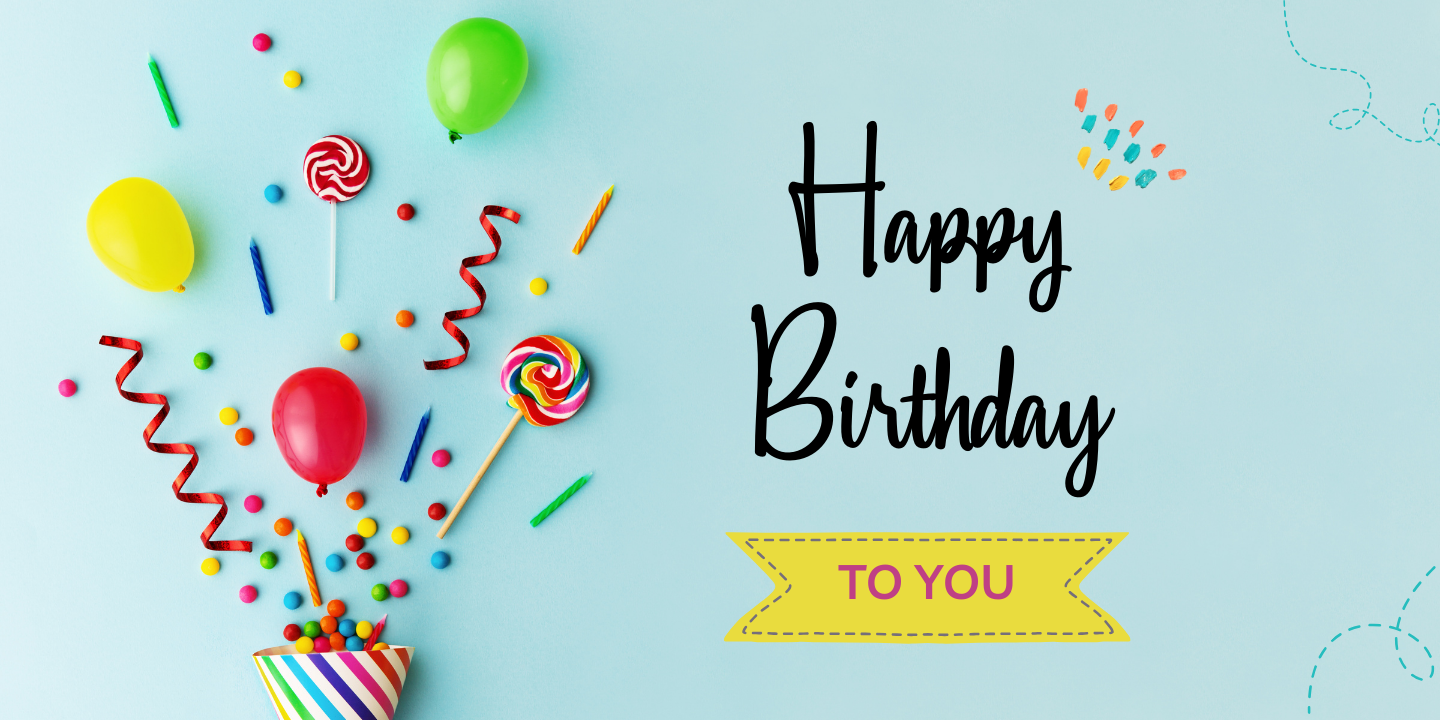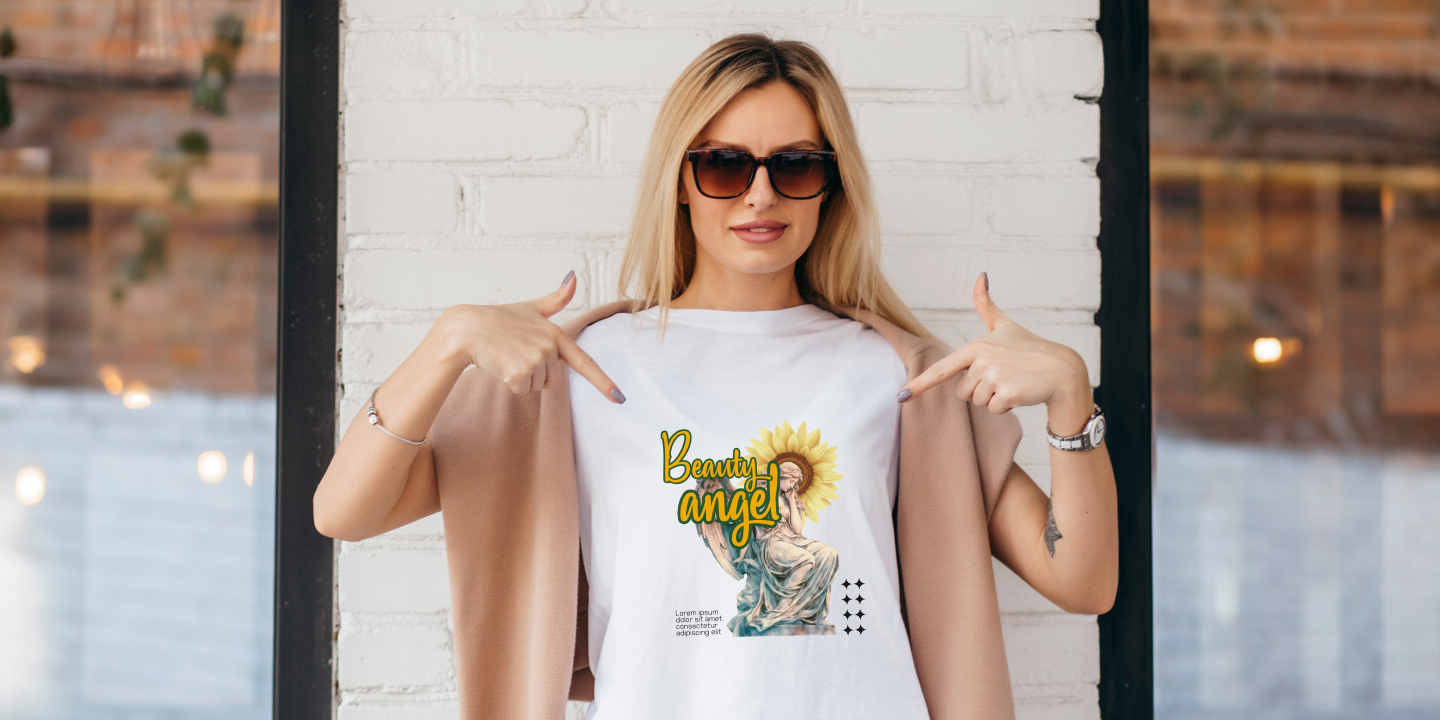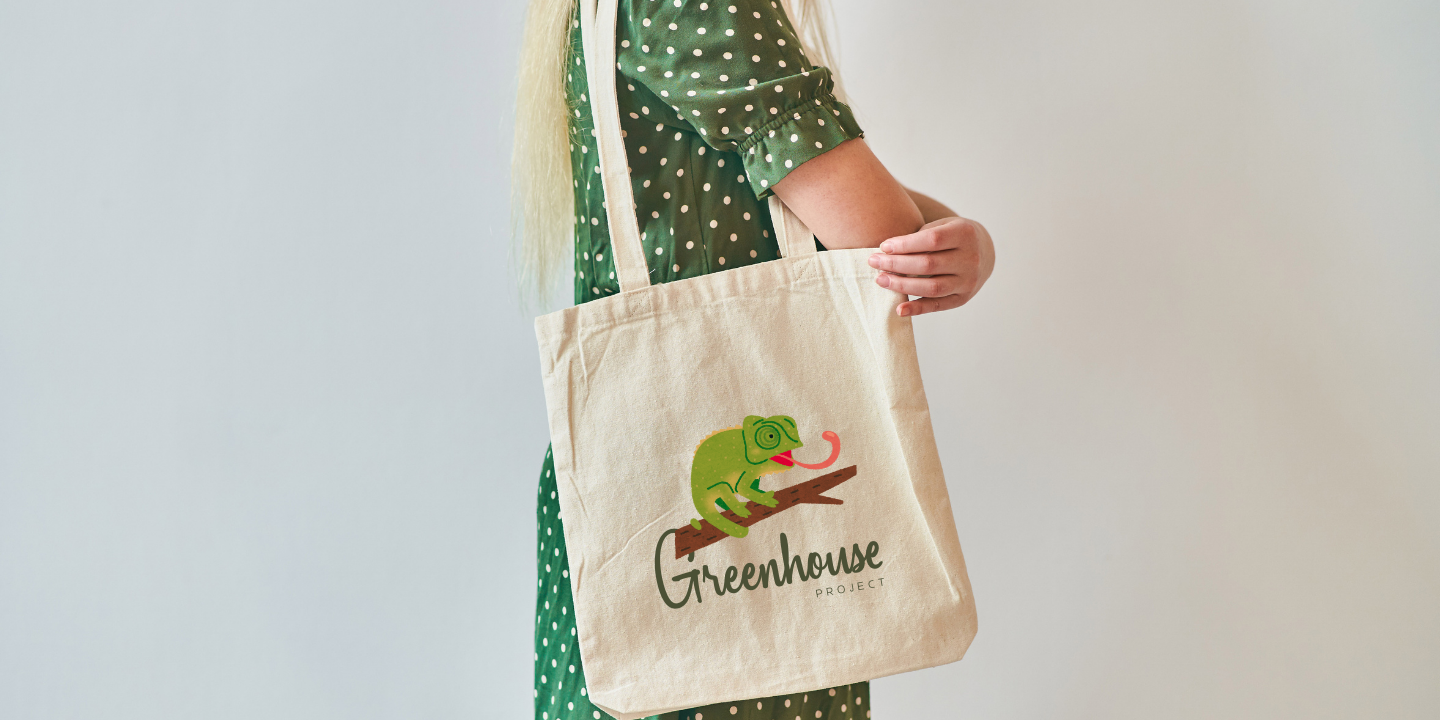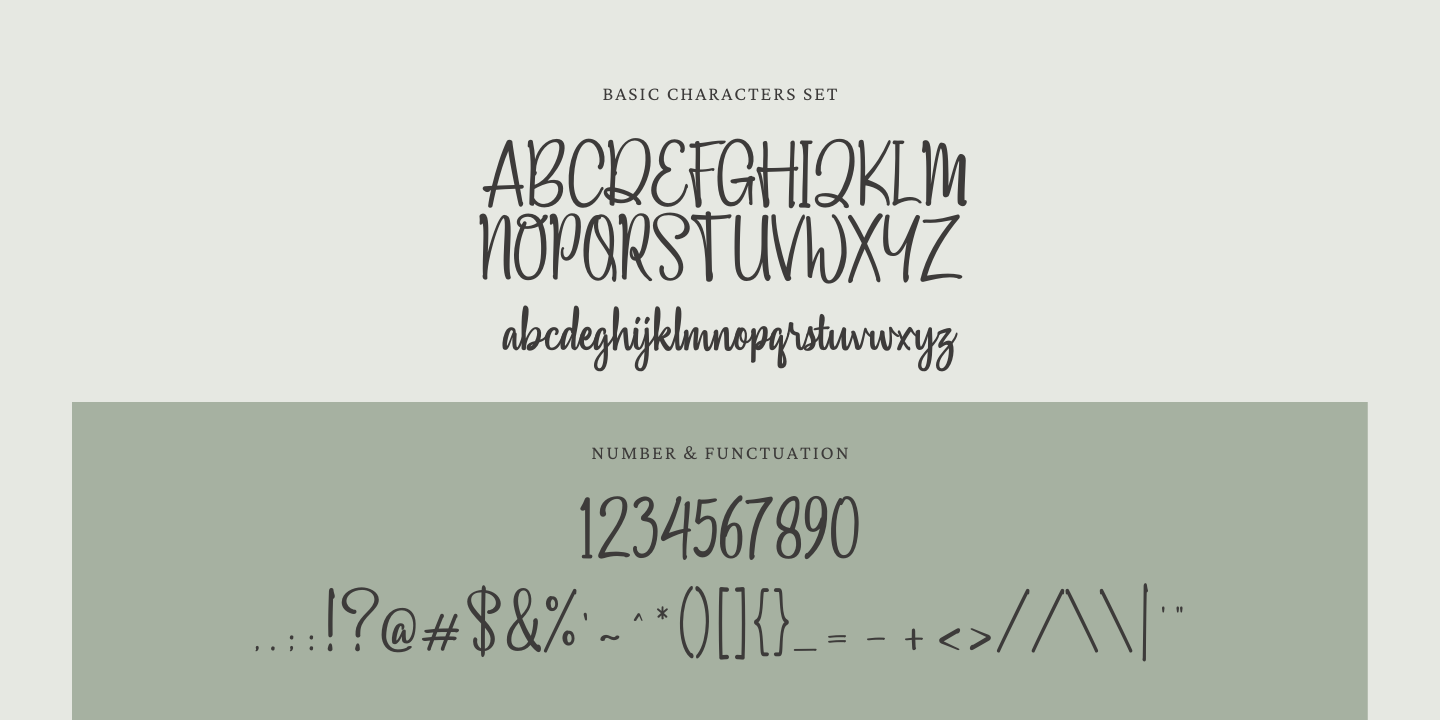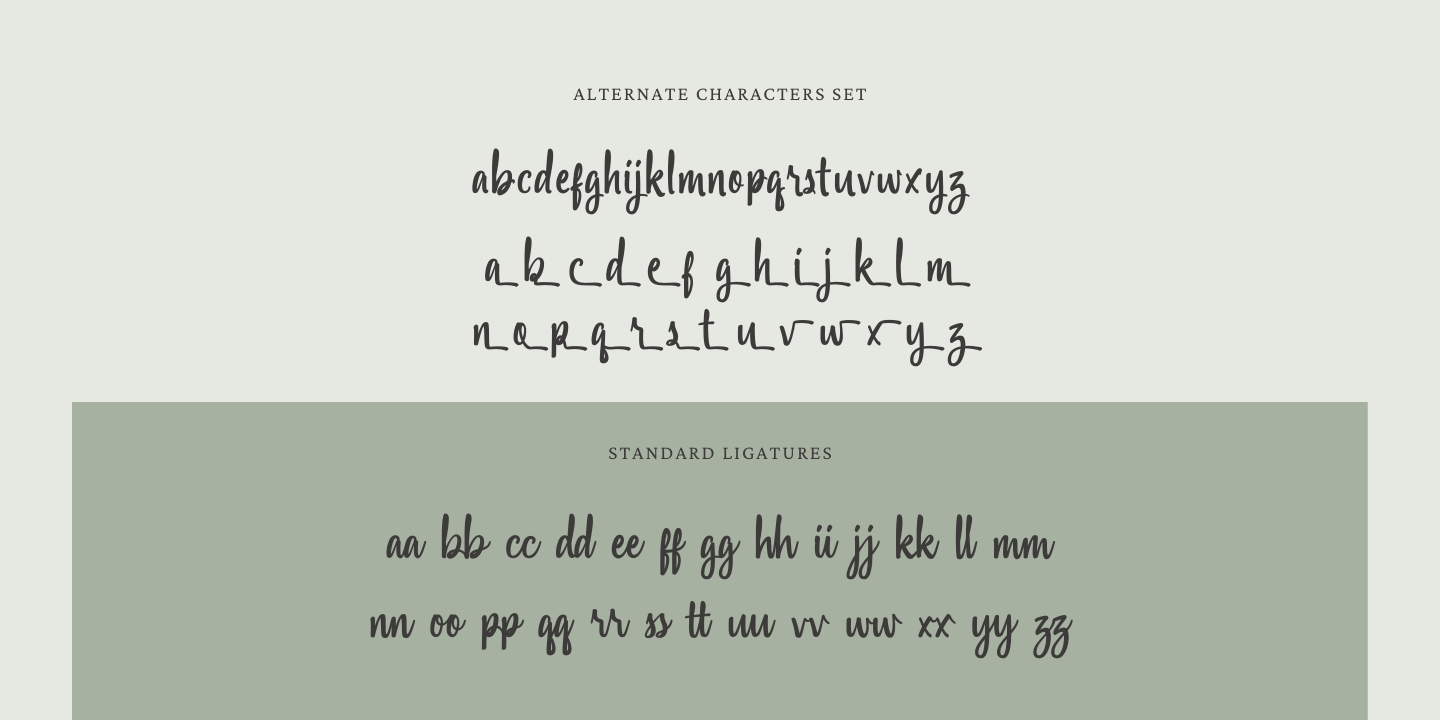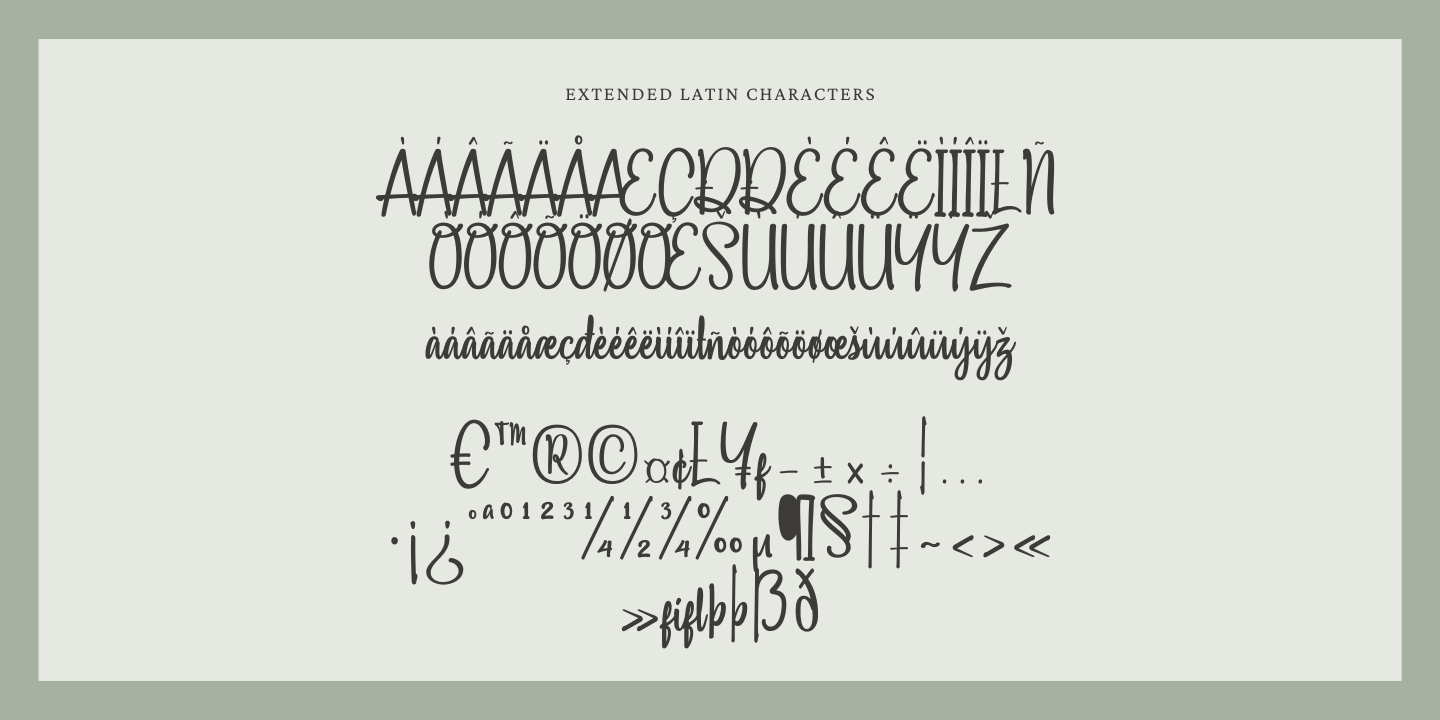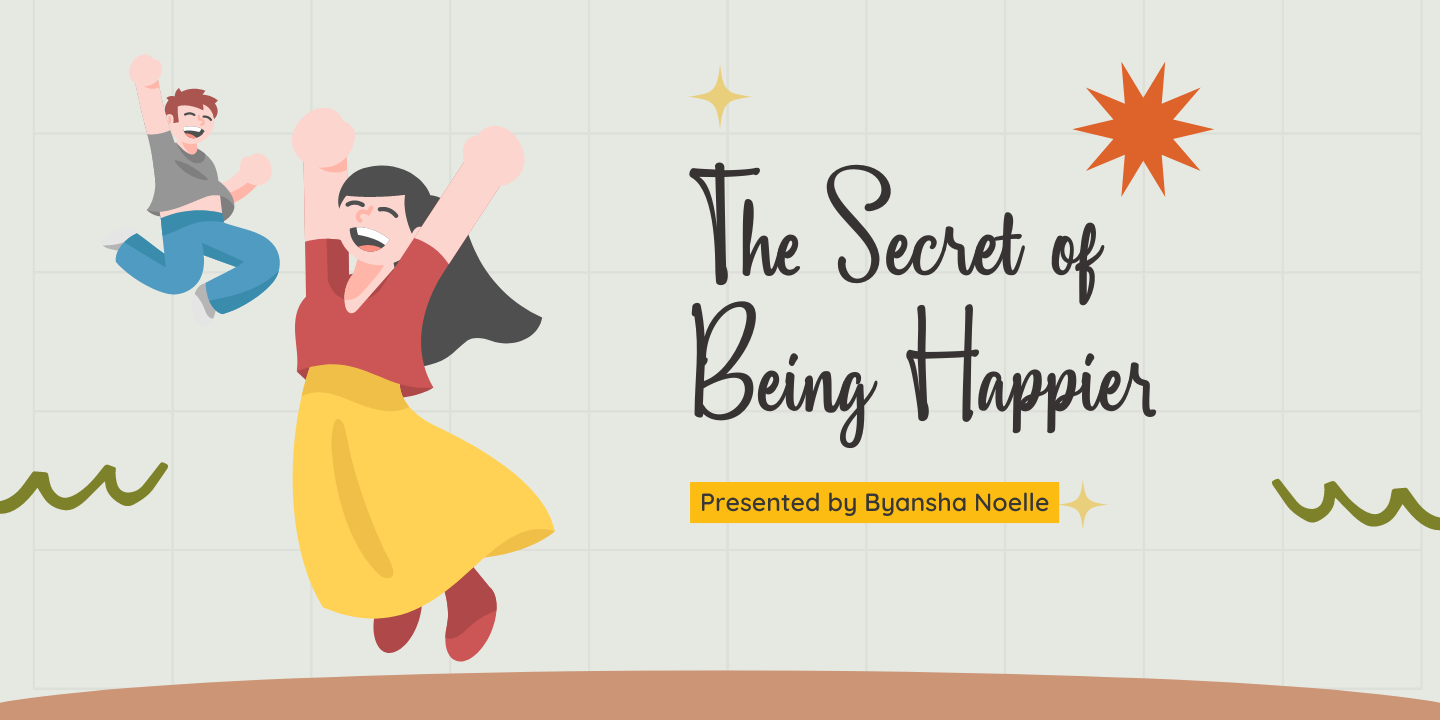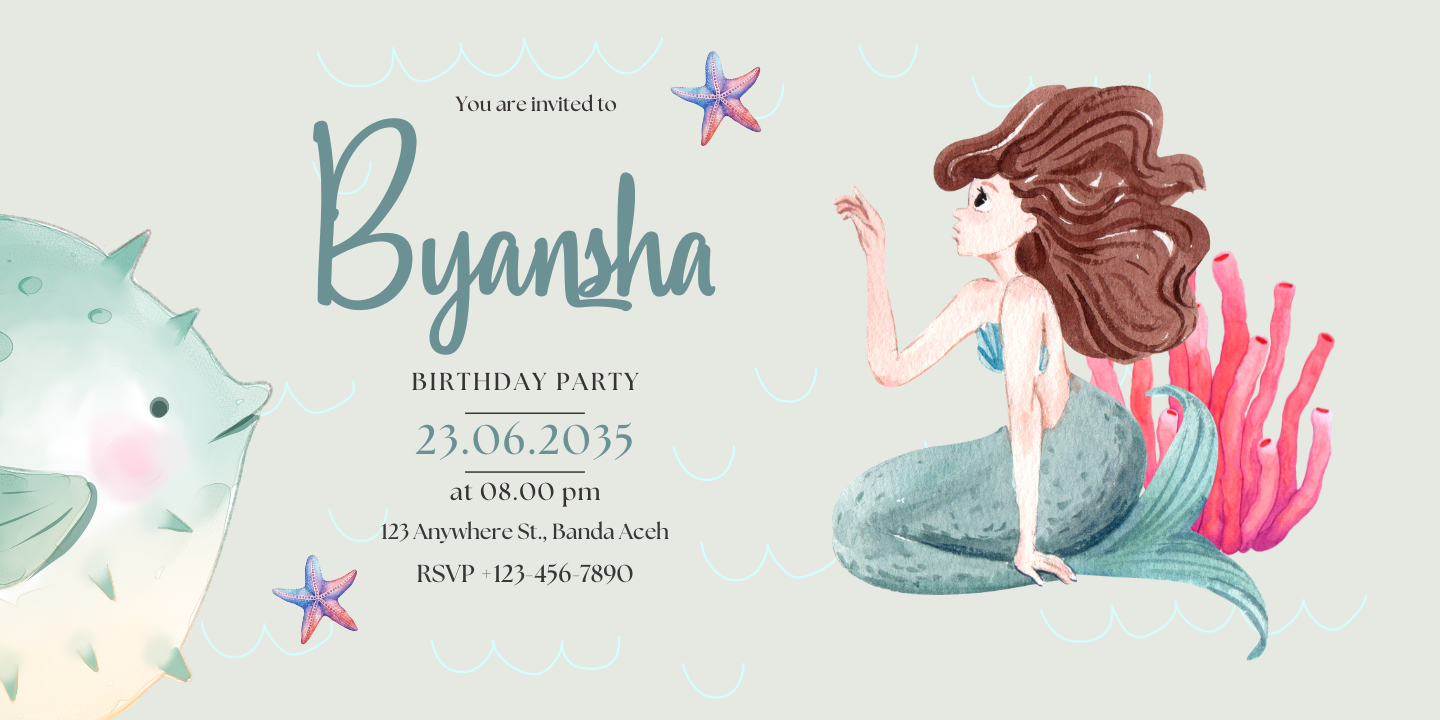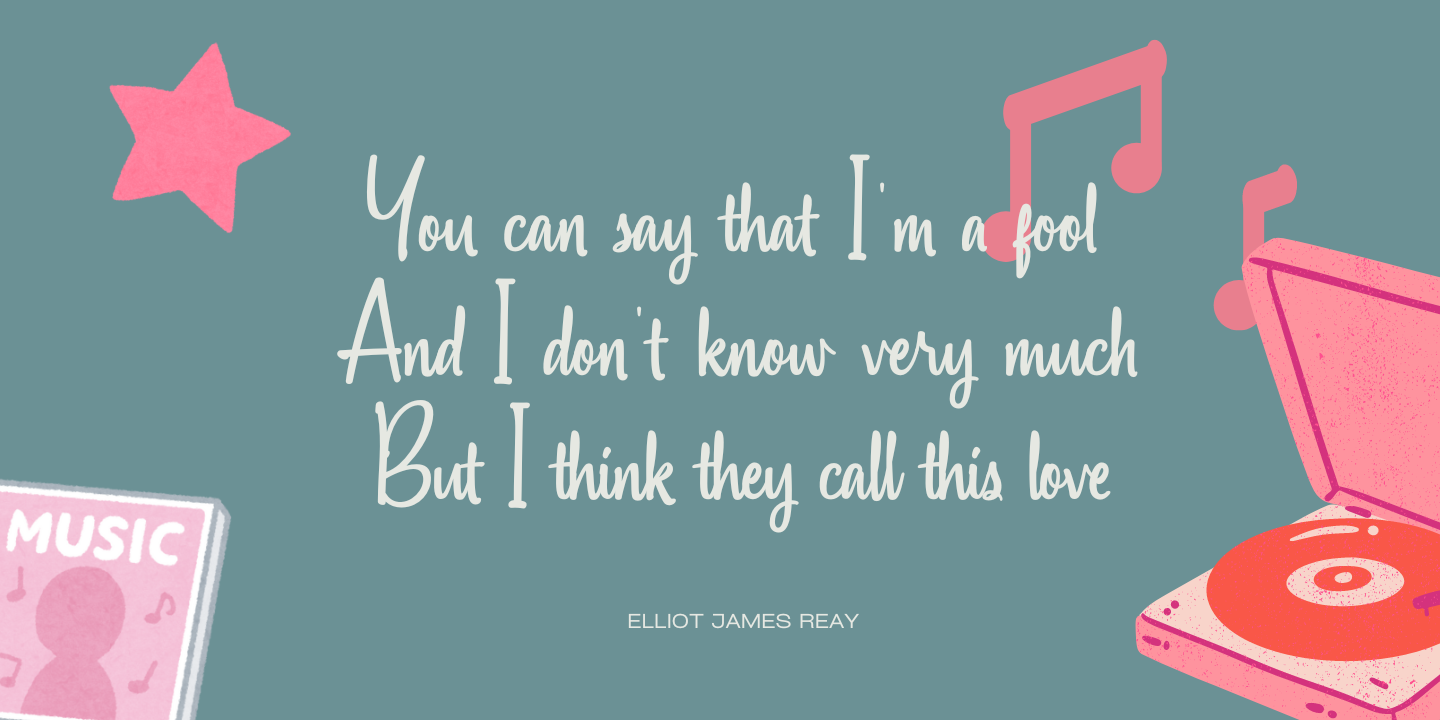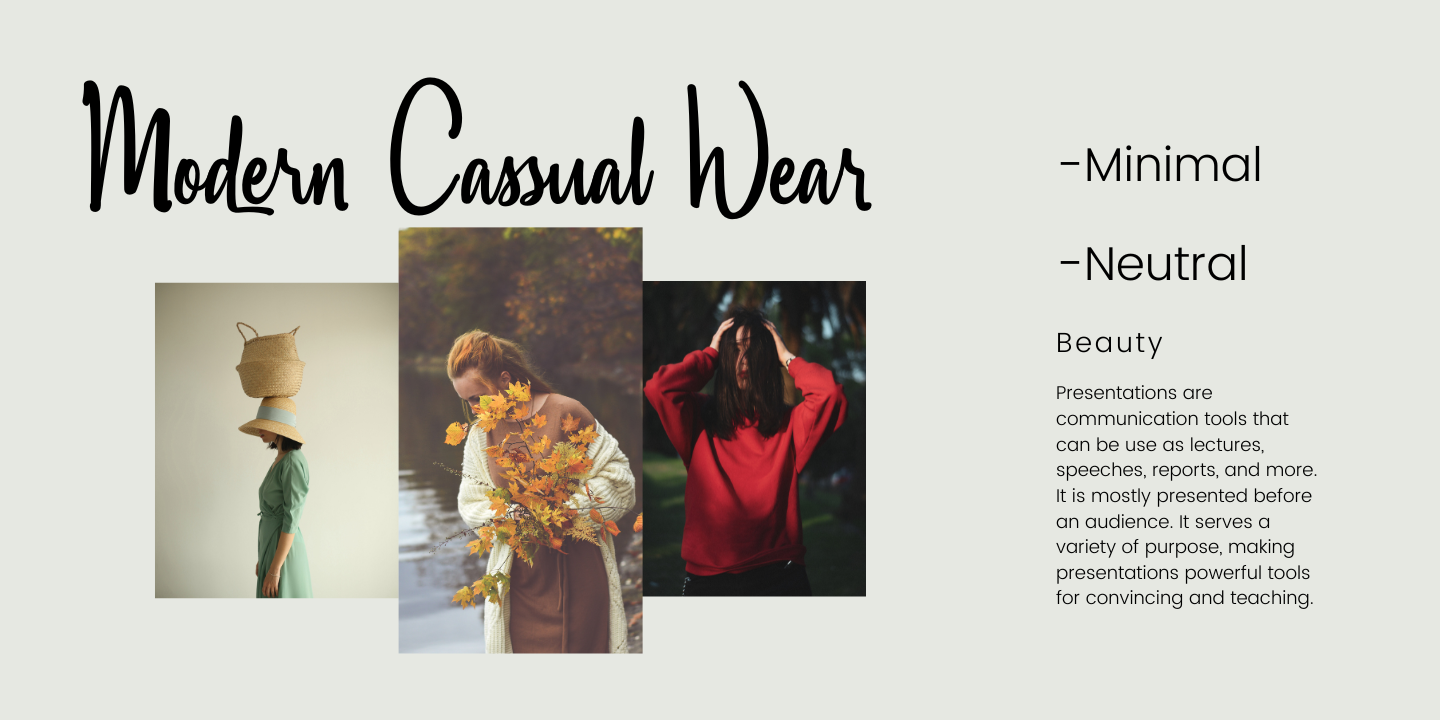
Key features of Byansha Noelle include:
- Alternate Characters: Give your text variety and a custom feel with multiple stylistic options for letters, allowing for unique combinations in every word.
- Standard Ligatures: Smooth and natural letter connections, ensuring your text flows effortlessly like true handwriting. - Extended Latin Characters: A wide range of characters supporting multiple languages, making it perfect for international projects.
Whether you're working on logos, invitations, social media graphics, or any other creative projects, Byansha Noelle adds an elegant, human touch to your work. Let your designs stand out with this stylish, versatile font!